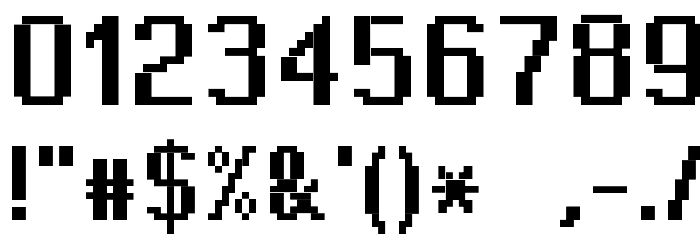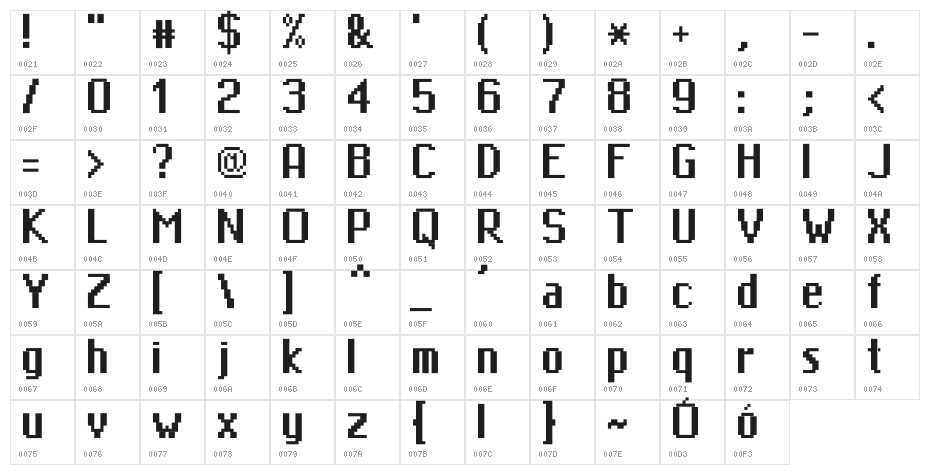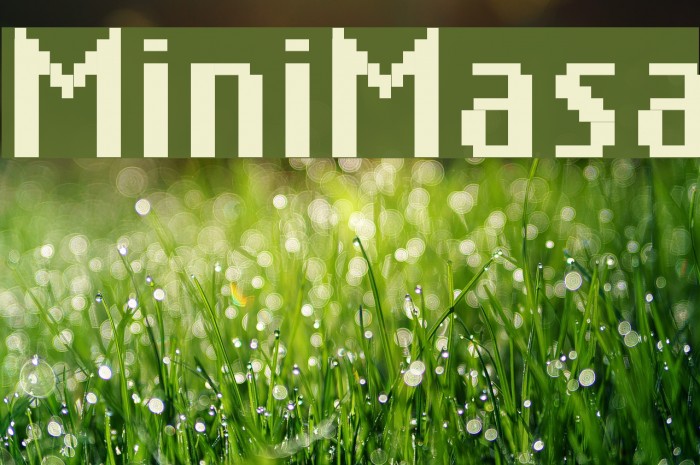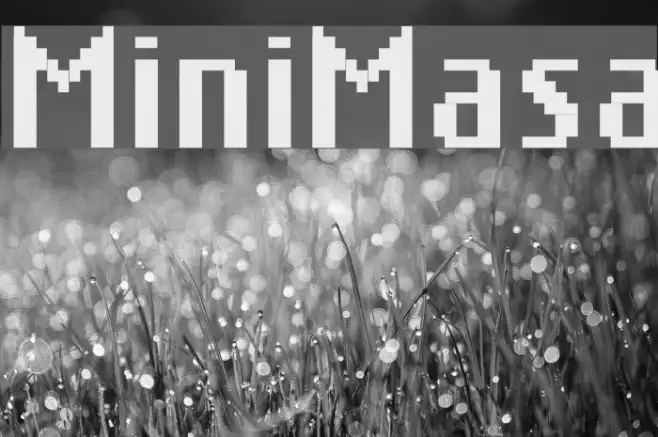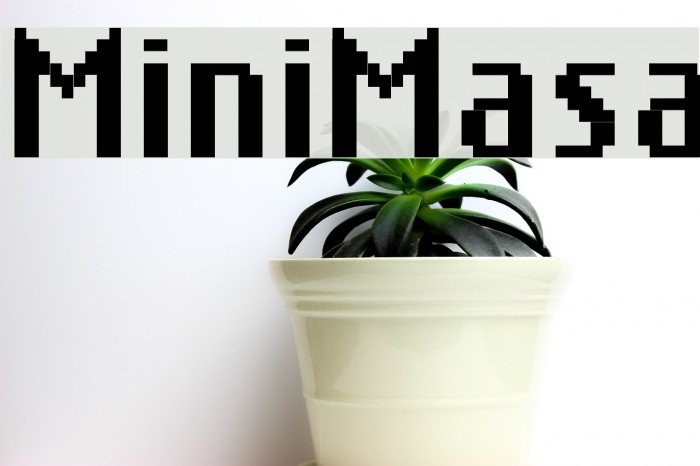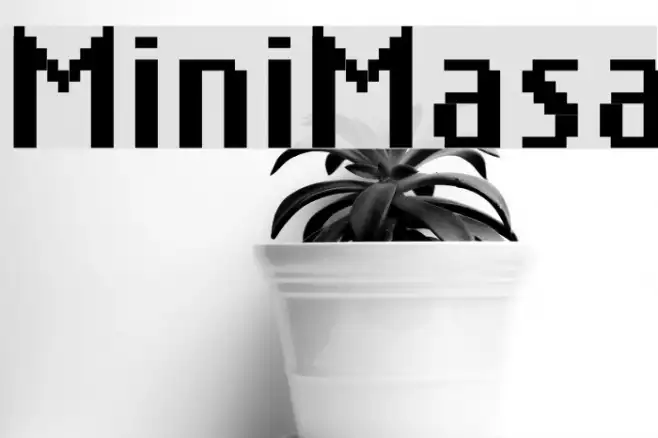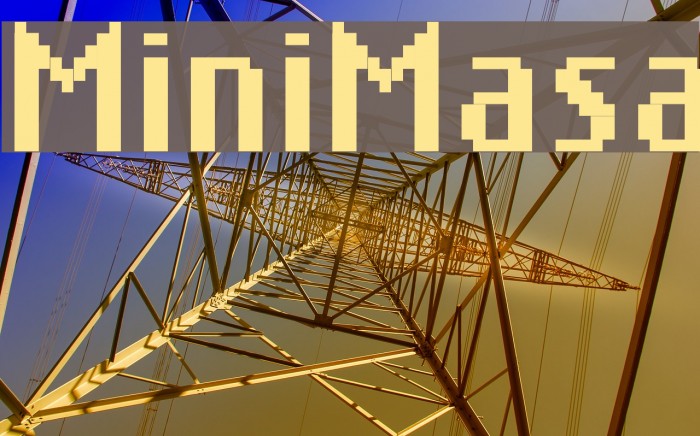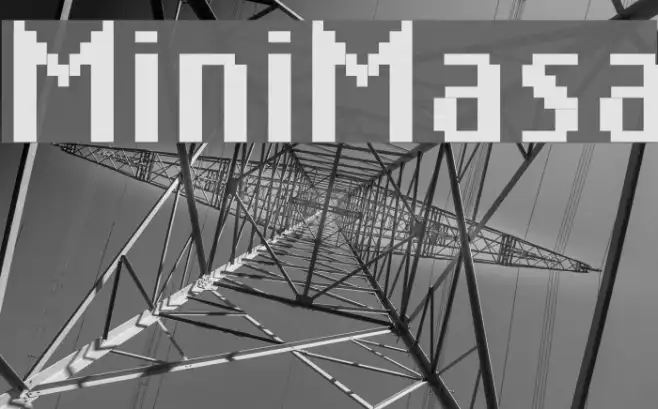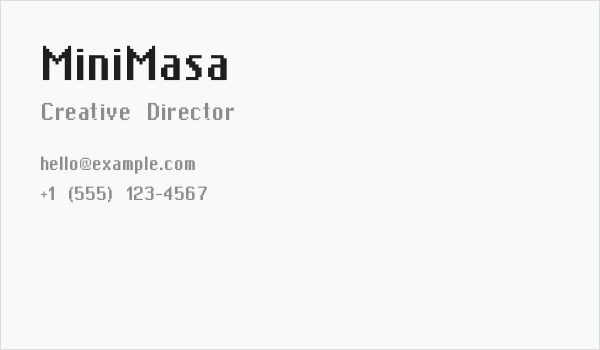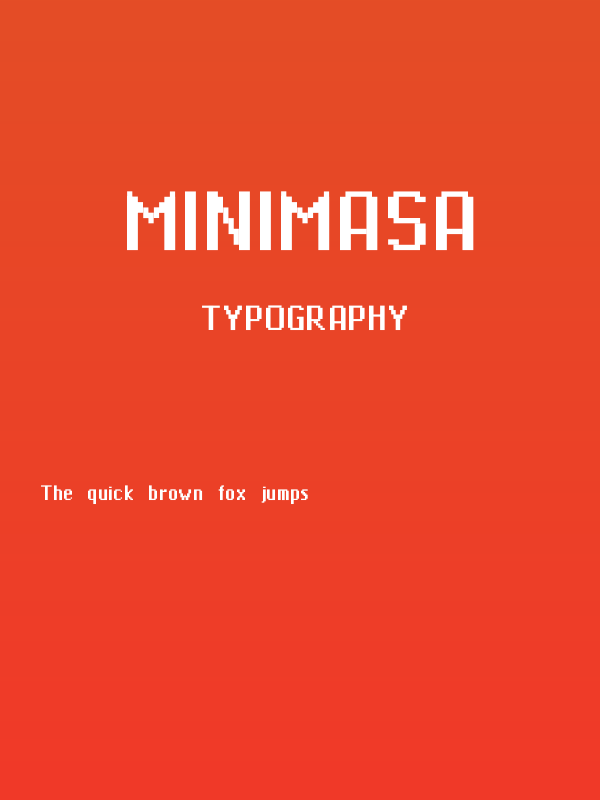
MiniMasa Font
MiniMasa Description
This font features a pixelated, blocky style reminiscent of early digital or video game typography. Each character is composed of uniform square pixels, giving it a distinctly retro and digital appearance. The uppercase and lowercase letters maintain a consistent height, with the lowercase slightly smaller in width. Numbers and special characters follow the same pixelated design, ensuring a cohesive look across all glyphs. The font's simplicity and geometric form make it highly legible, even at smaller sizes, while its unique style adds a nostalgic charm. It's ideal for projects that aim to evoke a sense of classic gaming or digital nostalgia.
| Use Case | Headlines, Logos, Digital Art |
| Proposed Projects | Perfect for video game design, retro-themed posters, digital art projects, and any creative work that requires a nostalgic digital aesthetic. |